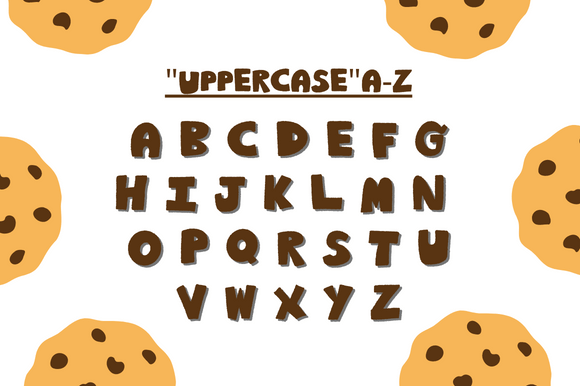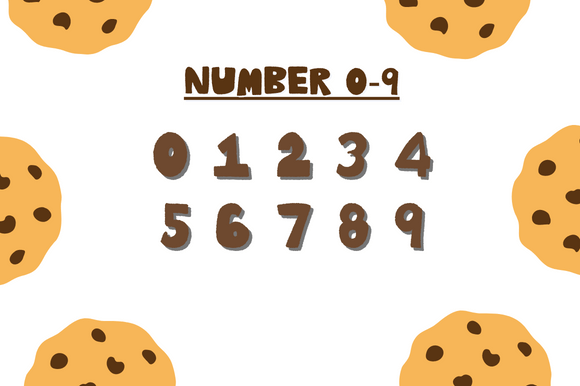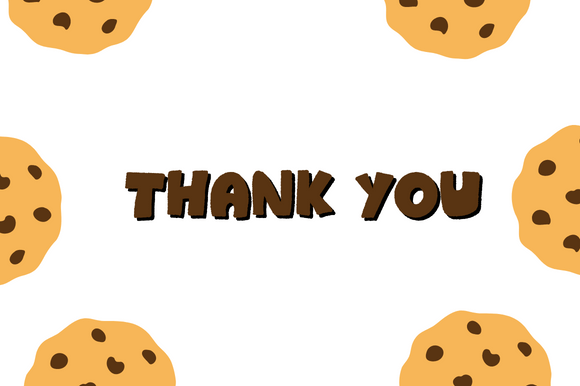
Biscuits Cup Font: The Perfect Addition to Your Design Projects
Are you looking for a font that can add a touch of whimsy and fun to your design projects? Look no further than the Biscuits Cup Font! This natural and fun display font is perfect for a wide range of projects, from branding and logos to t-shirt printing and creative products. In this article, we’ll take a closer look at the Biscuits Cup Font and explore how it can elevate your designs.
What is Biscuits Cup Font?
Biscuits Cup Font is a unique and eye-catching display font that is sure to make your designs stand out. With its natural and fun aesthetic, this font is perfect for projects that require a touch of personality and whimsy. Whether you’re working on a branding project, creating custom t-shirts, or designing unique products, the Biscuits Cup Font is a great choice.
Key Features of Biscuits Cup Font
So, what makes the Biscuits Cup Font so special? Here are just a few of its key features:
- Natural and Fun Aesthetic: The Biscuits Cup Font has a unique and playful aesthetic that is sure to add a touch of personality to your designs.
- Display Font: This font is specifically designed as a display font, making it perfect for headlines, titles, and other prominent text elements.
- Versatile: The Biscuits Cup Font can be used on a wide range of projects, from branding and logos to t-shirt printing and creative products.
- Easy to Read: Despite its playful aesthetic, the Biscuits Cup Font is easy to read and understand, making it perfect for use in a variety of contexts.
How to Use Biscuits Cup Font in Your Designs
So, how can you use the Biscuits Cup Font in your designs? Here are a few ideas to get you started:
- Branding Projects: Use the Biscuits Cup Font to create unique and eye-catching logos, business cards, and other branding materials.
- T-Shirt Printing: Add a touch of personality to your t-shirt designs with the Biscuits Cup Font.
- Creative Products: Use the Biscuits Cup Font to create unique and eye-catching designs for products such as mugs, tote bags, and phone cases.
- Signage: The Biscuits Cup Font is perfect for use in signage, including store signs, event signs, and more.
Tips for Pairing Biscuits Cup Font with Other Fonts
When using the Biscuits Cup Font in your designs, you may want to pair it with other fonts to create a unique and visually appealing aesthetic. Here are a few tips for pairing the Biscuits Cup Font with other fonts:
- Pair with a Serif Font: Pairing the Biscuits Cup Font with a serif font can create a nice contrast and add visual interest to your designs.
- Pair with a Script Font: Pairing the Biscuits Cup Font with a script font can add a touch of elegance and sophistication to your designs.
- Experiment with Different Font Sizes: Don’t be afraid to experiment with different font sizes when pairing the Biscuits Cup Font with other fonts.
| Font Name | Biscuits Cup Font |
| Author | danita.kukkai |
In conclusion, the Biscuits Cup Font is a natural and fun display font that is perfect for a wide range of design projects. With its unique aesthetic and versatile design, this font is sure to add a touch of personality and whimsy to your designs. Whether you’re working on a branding project, creating custom t-shirts, or designing unique products, the Biscuits Cup Font is a great choice. So why not give it a try and see how it can elevate your designs?